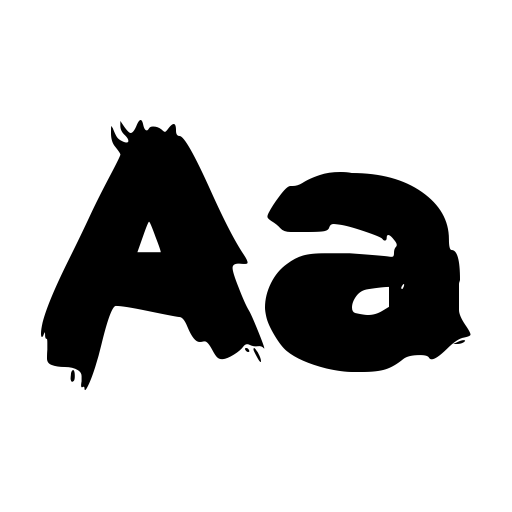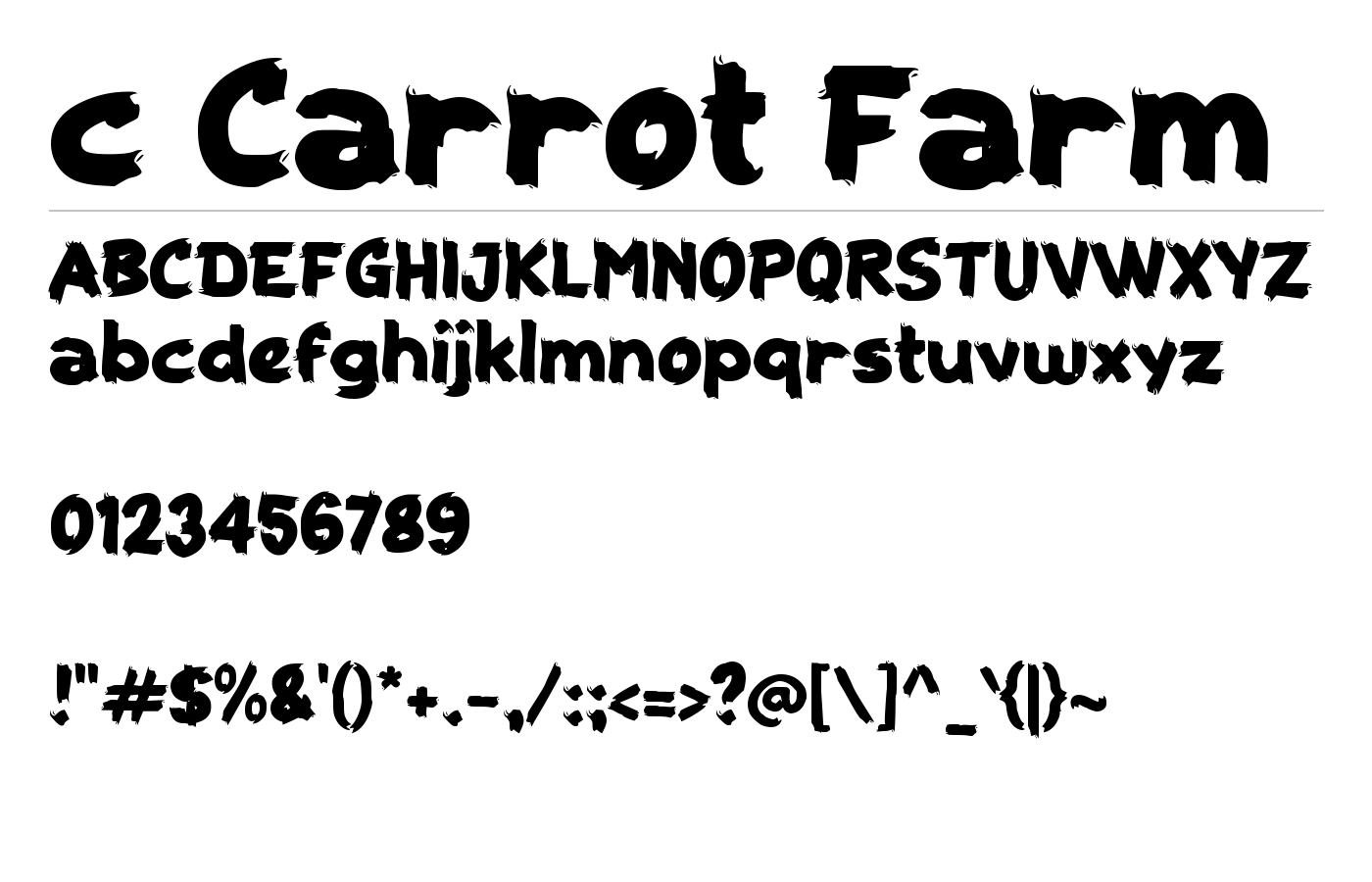
Carrot Farm is a bold, playful display font with a chunky, irregular design that evokes a hand-crafted or organic feel. Its high-contrast strokes and rough edges give it an energetic, fun personality ideal for informal branding, children’s projects, or creative headlines. This font works best in eye-catching titles and logos where a lively, approachable style is desired.
c Carrot Farm Font